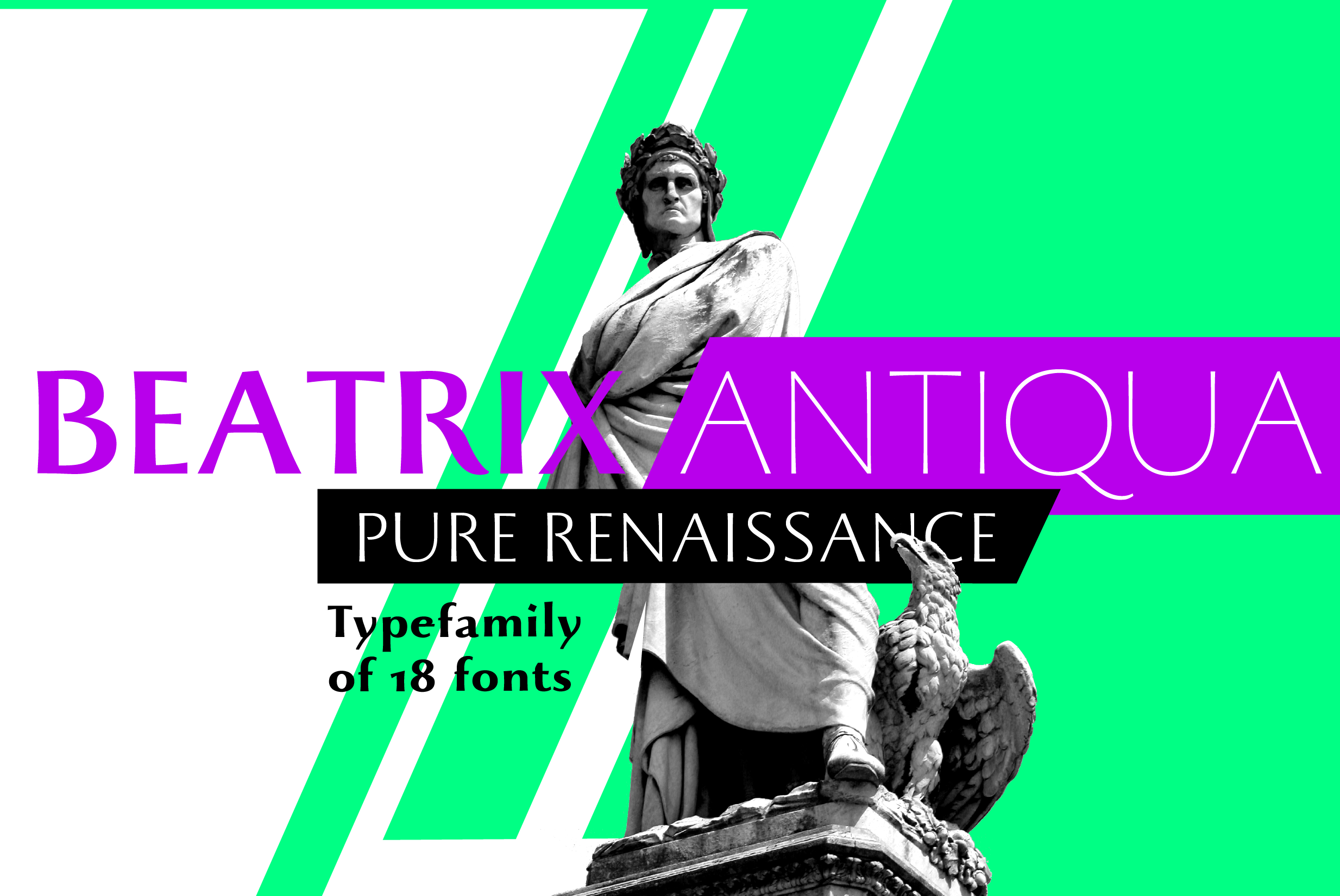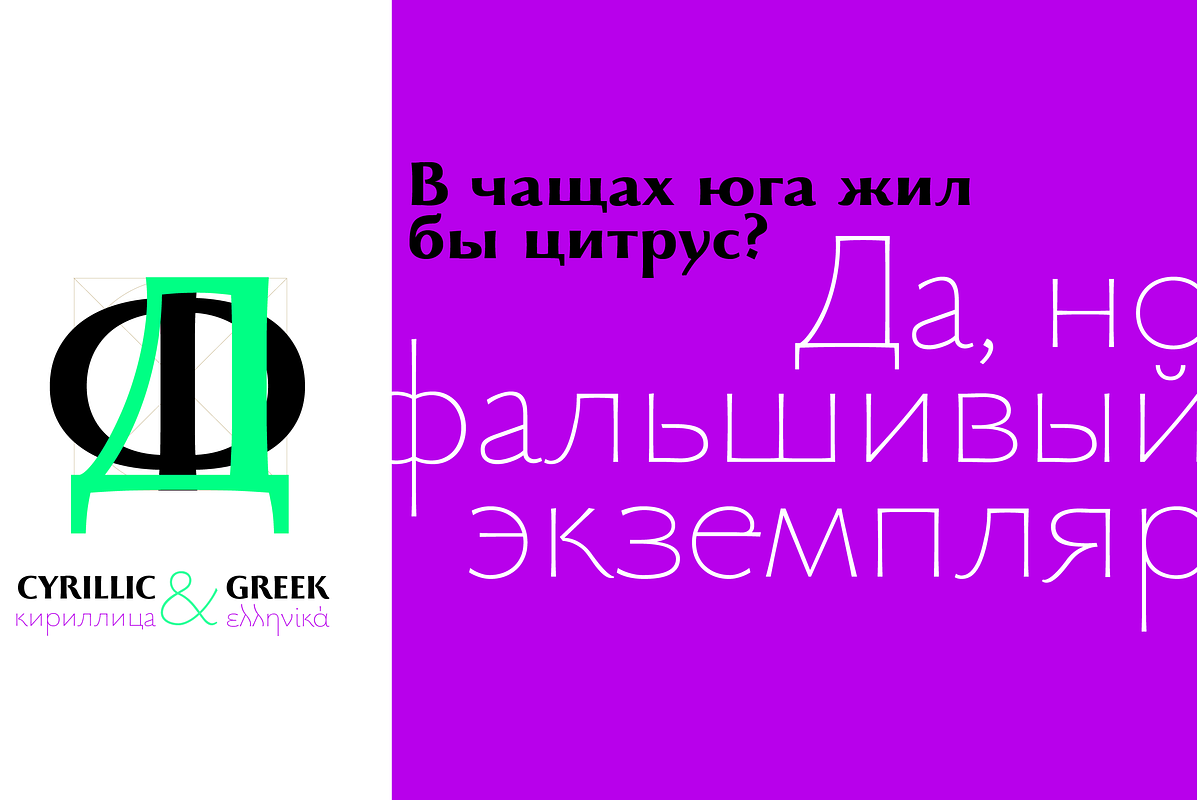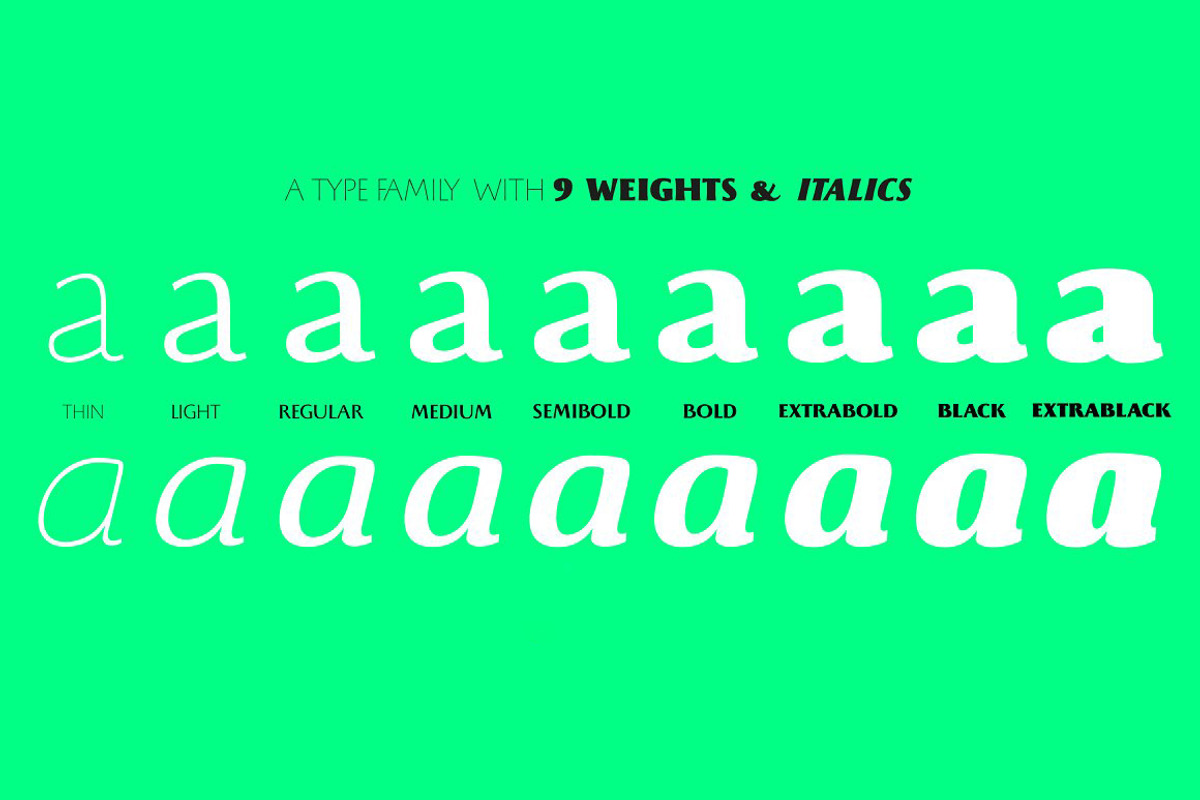
Beatrix Antiqua - 18 fonts
Beatrix Antiqua is a humanist sans-serif typeface designed by Francesco Canovaro, part of the Beatrix Family that takes its inspiration from the classic Roman monumental capital model: its capitals are directly derived from the stone carvings in Florence Santa Croce Cathedral - where the serifs are often removed while keeping the variable width strokes. So, even if it's basically a sans-serif, Beatrix keeps a subtle swelling at the terminals suggesting a glyphic serif - in the same vein as Herman Zapf classic Optima typeface. In the lowercase design, Beatrix references early humanist typefaces, keeping small calligraphic details (as the prolongation of the e nose) that are especially visible in the italics. Featuring lower X-height and an extended character set that covers over forty languages using the latin alphabet, as well as Greek and Russian Cyrillic.
- Uppercase, lowercase, smallcase
- Numerals and old style numerals
- Punctuation and symbols
- Latin, Greek and Cyrillic alphabets